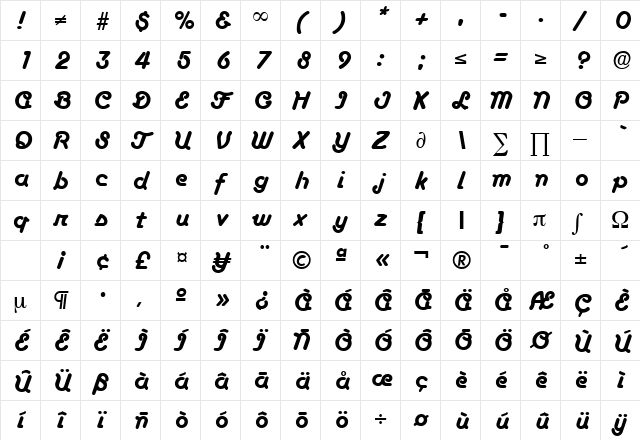
Boascript DB Medium
Design Context for Boascript DB Typeface
Boascript DB flows with the natural rhythm of handwritten lettering, making it ideal for designs that call for warmth and personal expression.
Font Pairing: Combine Boascript DB with a simple geometric sans for maximum contrast — the tension between flowing curves and clean structure is a classic typographic pairing.
Pro Tip: Pair Boascript DB with a clean sans-serif for supporting text. The contrast between fluid script and geometric structure creates an elegant typographic hierarchy.